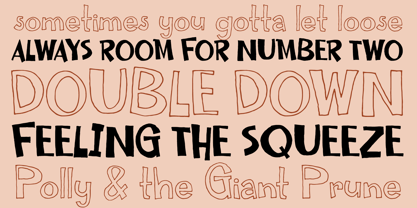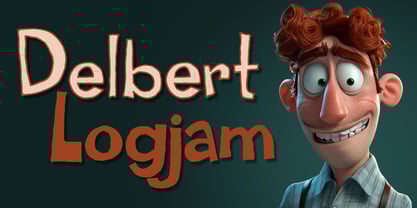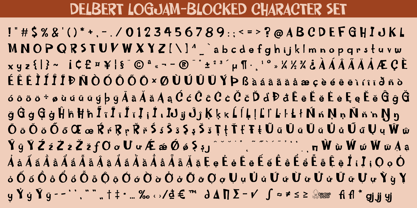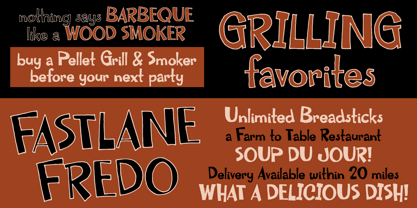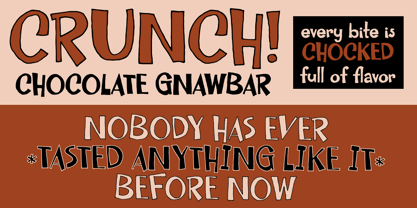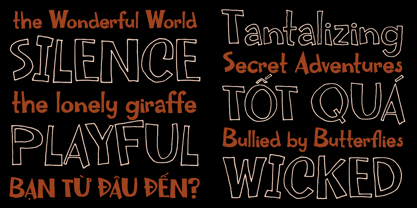
Delbert Logjam
by One Eyed Squid
The Delbert Logjam Font Family was designed by Brian J. Bonislawsky, Dave Cohen and published by One Eyed Squid. Delbert Logjam contains 2 styles and family package options.
Hi there, I'm Delbert Logjam. Let's try to be adult's here and skip the made up nicknames and name calling.
I'm all too often a bit nervous and withdrawn, but some people jokingly like to say I'm socially constipated. I just want to get this out! I want to be your friend, your font. Show me a little kindness, and I can be a fun font to design with in a pinch.
(Delbert Logjam contains an extended Latin character set with added Vietnamese support.)
About One Eyed Squid
Dave "Squid" Cohen & Brian "Stiggy" Bonislawsky combine their fontmaking talents to bring you an array of fun and entertaining typefaces loaded with animated and diverse retro flavor.You may know Dave Cohen's fonts from Sideshow and Neapolitan type foundries, as you may know Brian Bonislawsky's fonts from Astigmatic (AOETI), Grype, Pink Broccoli, Monogram Fonts Co., Stiggy & Sands, and VersusTwin type foundries.So what is this foundry all about? It's all about bringing collaborative skills to bear to express more of their crazy typographic ideas and create even more exciting fonts to the design community.